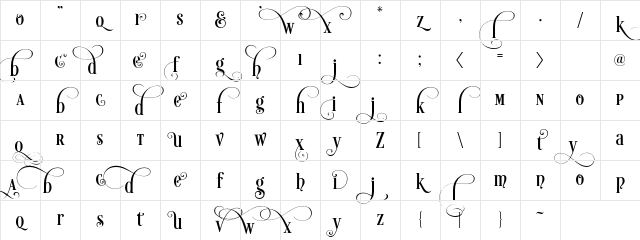
Complete Desire Lowercase 1 glyph index. Displaying only characters natively supported by Desire Lowercase 1 font.
Desire Lowercase is a composed and adaptable typeface that performs quietly and consistently across a wide range of design contexts.
Who designed the Desire Lowercase 1 font?